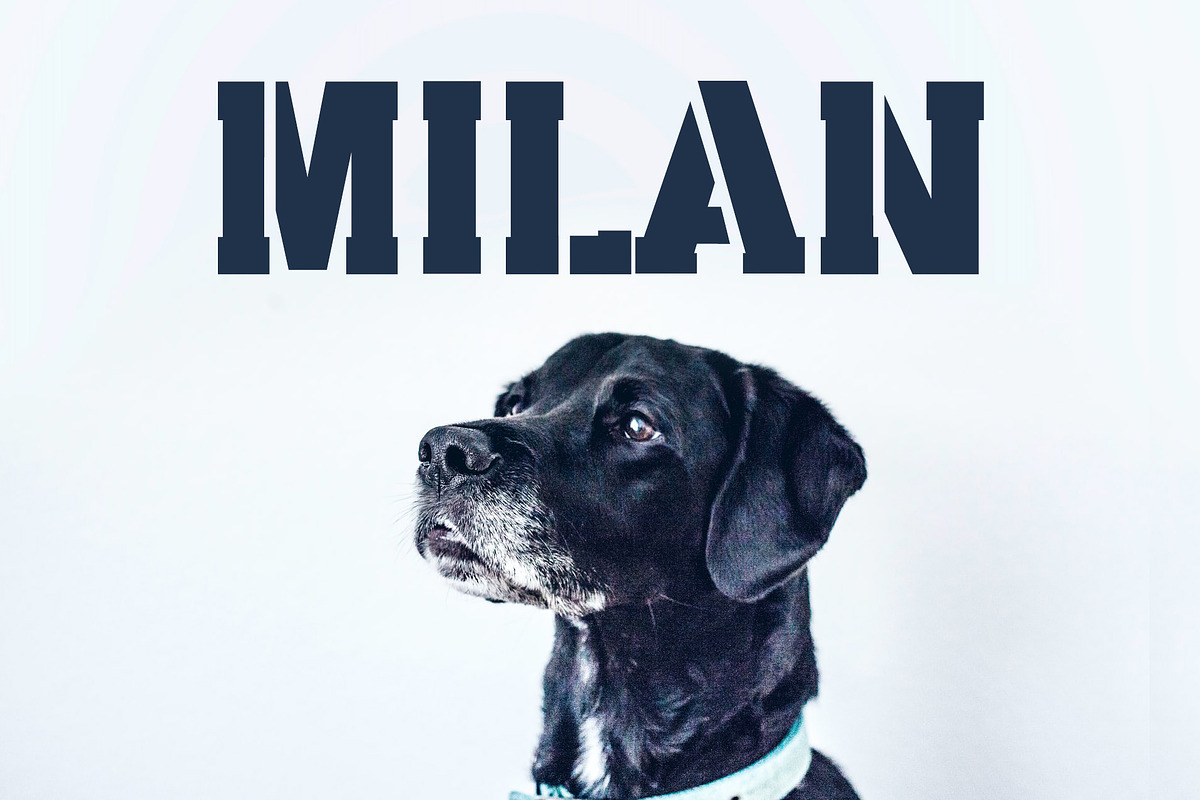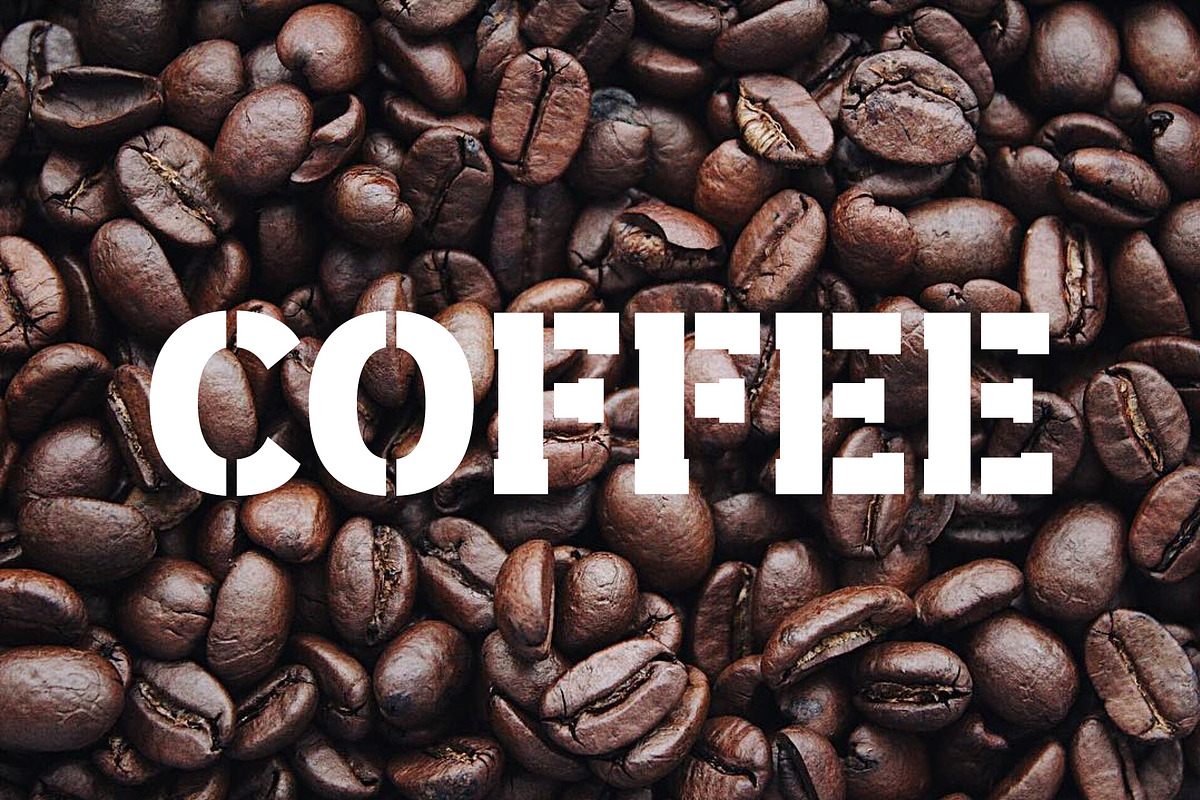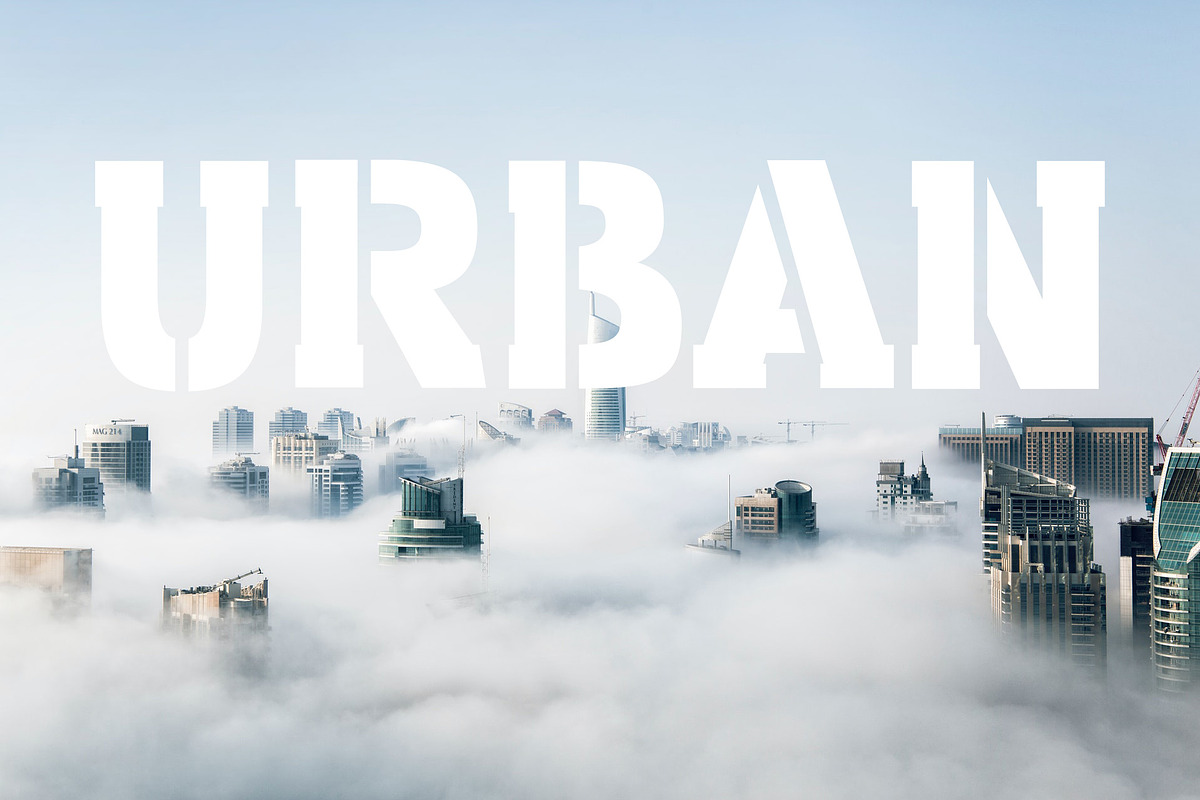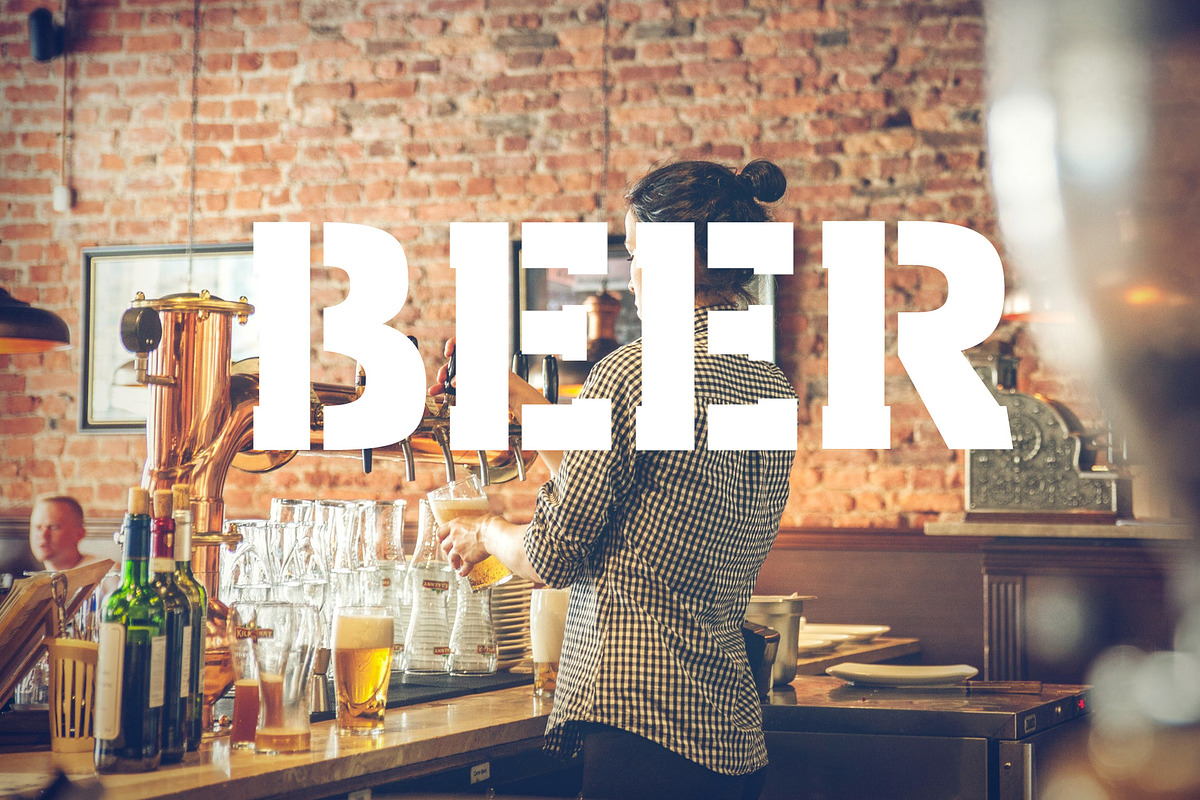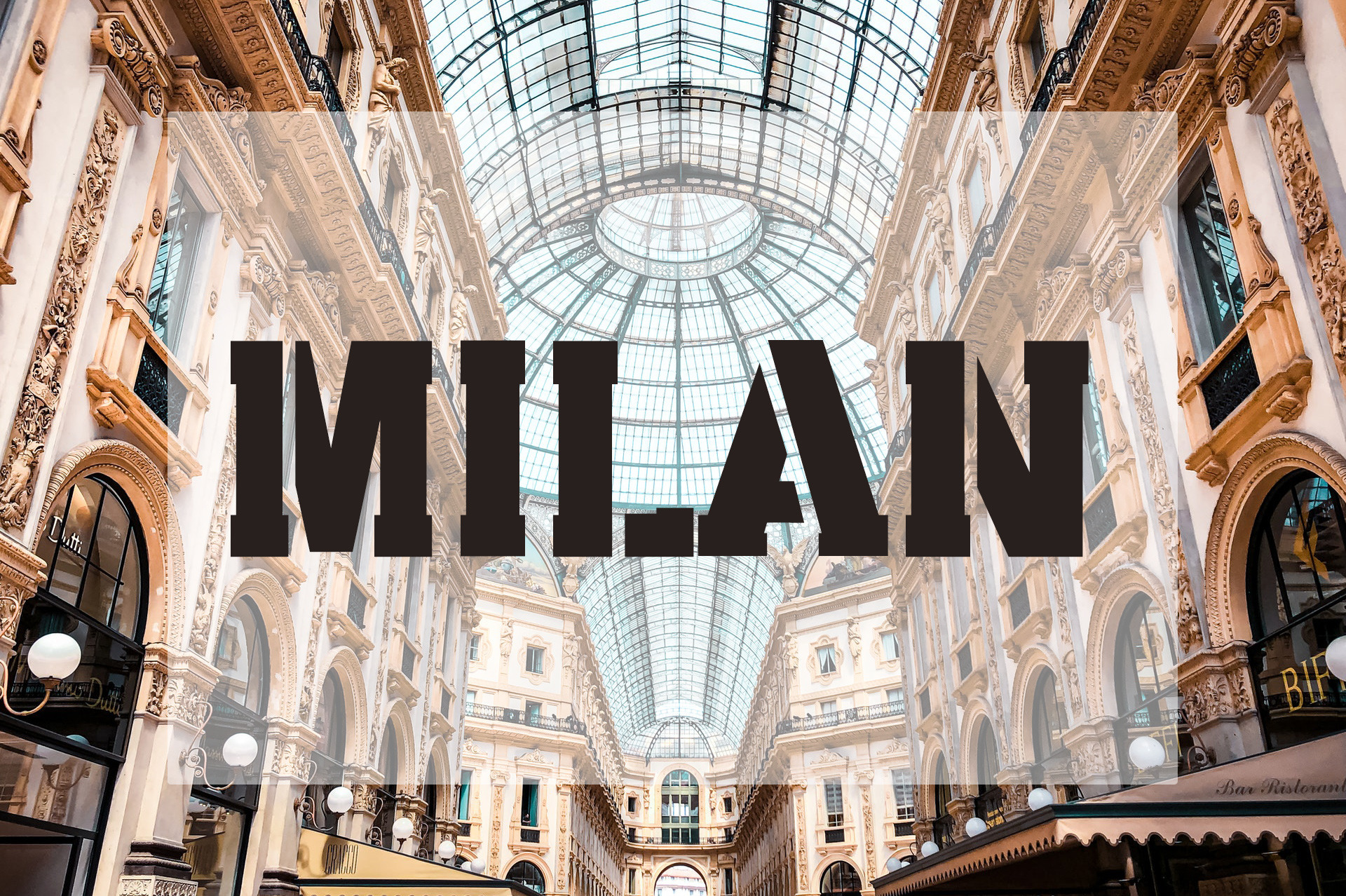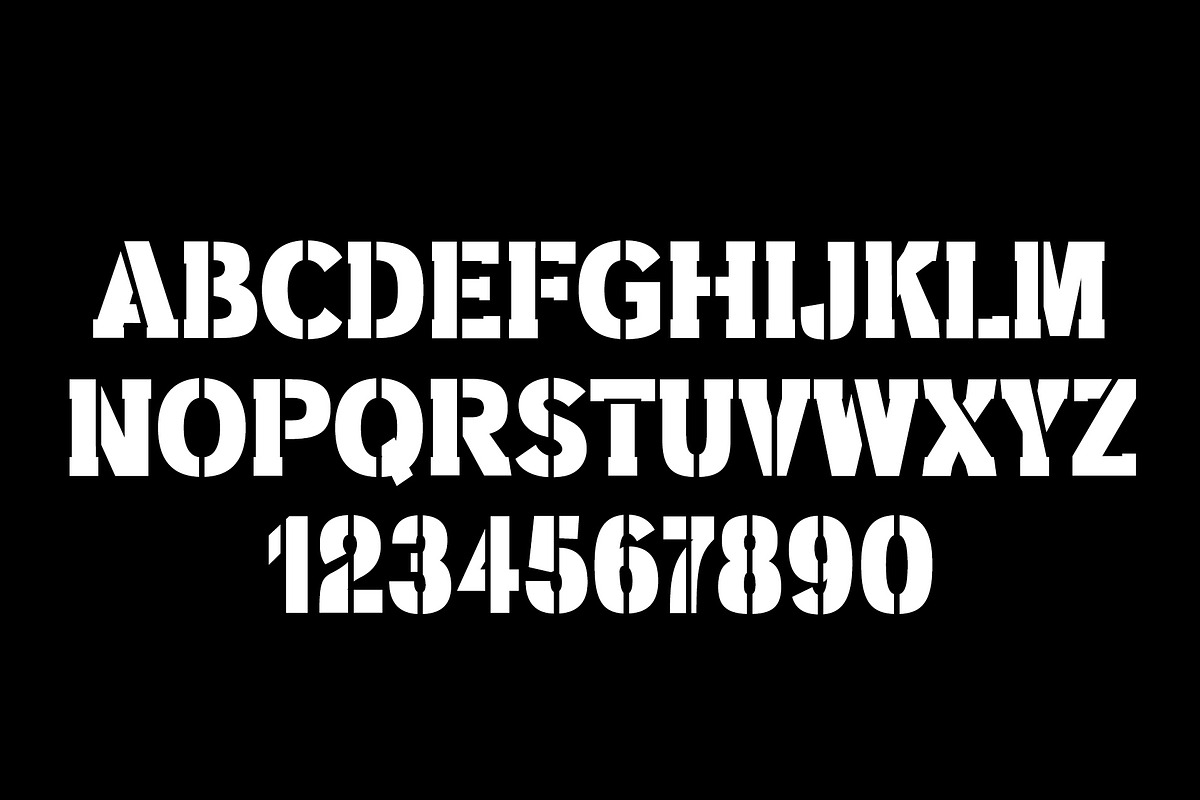
Milan Stencil - Urban City Font
Milan is Stencil Slab City Font.
Milan is high-impact bold typeface for a perfect urban vibe. It comes with sharp masculine lines for dynamic city life.
It can be used for posters, headlines, T-Shirts, laser cut craft and many more..